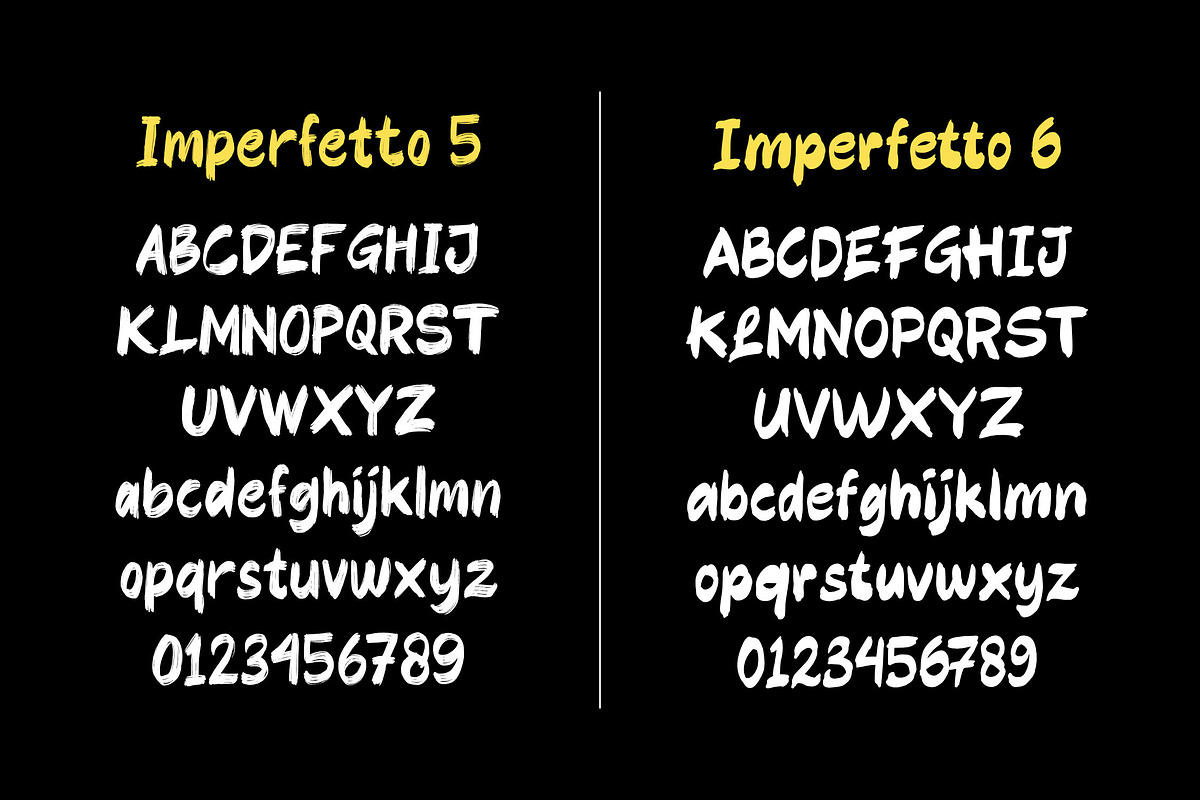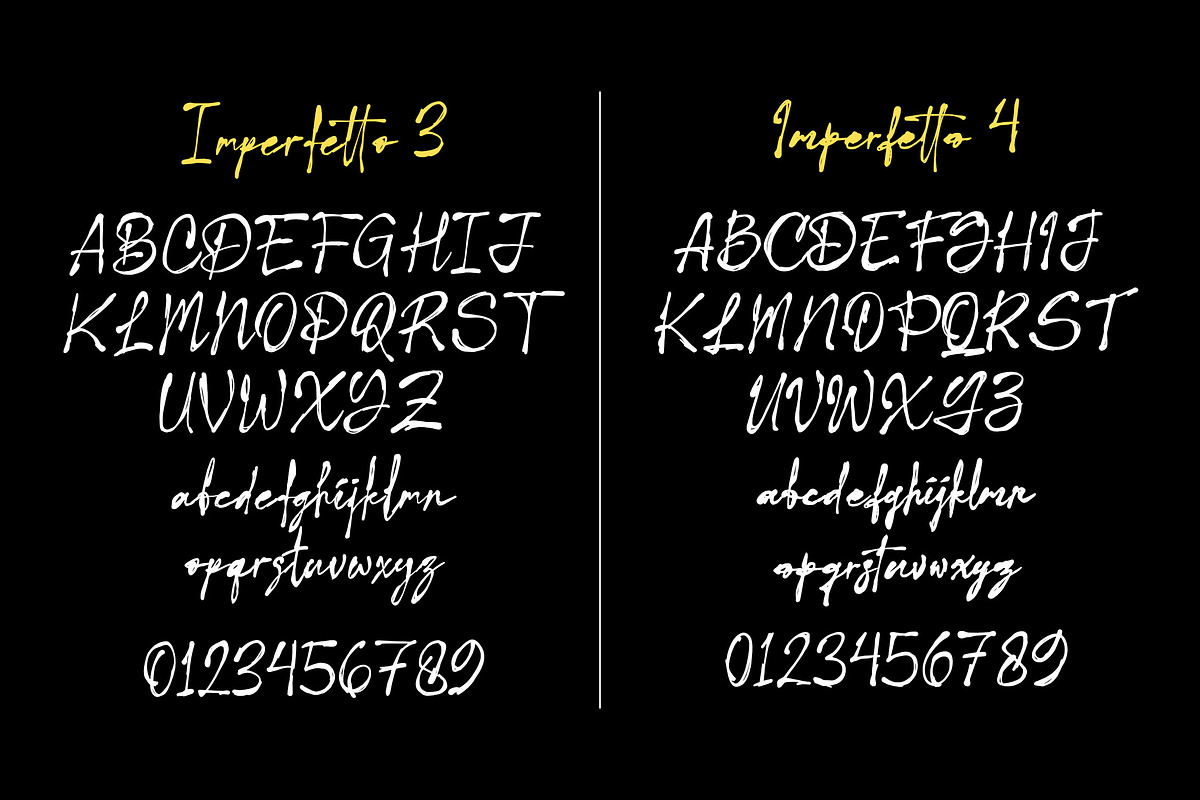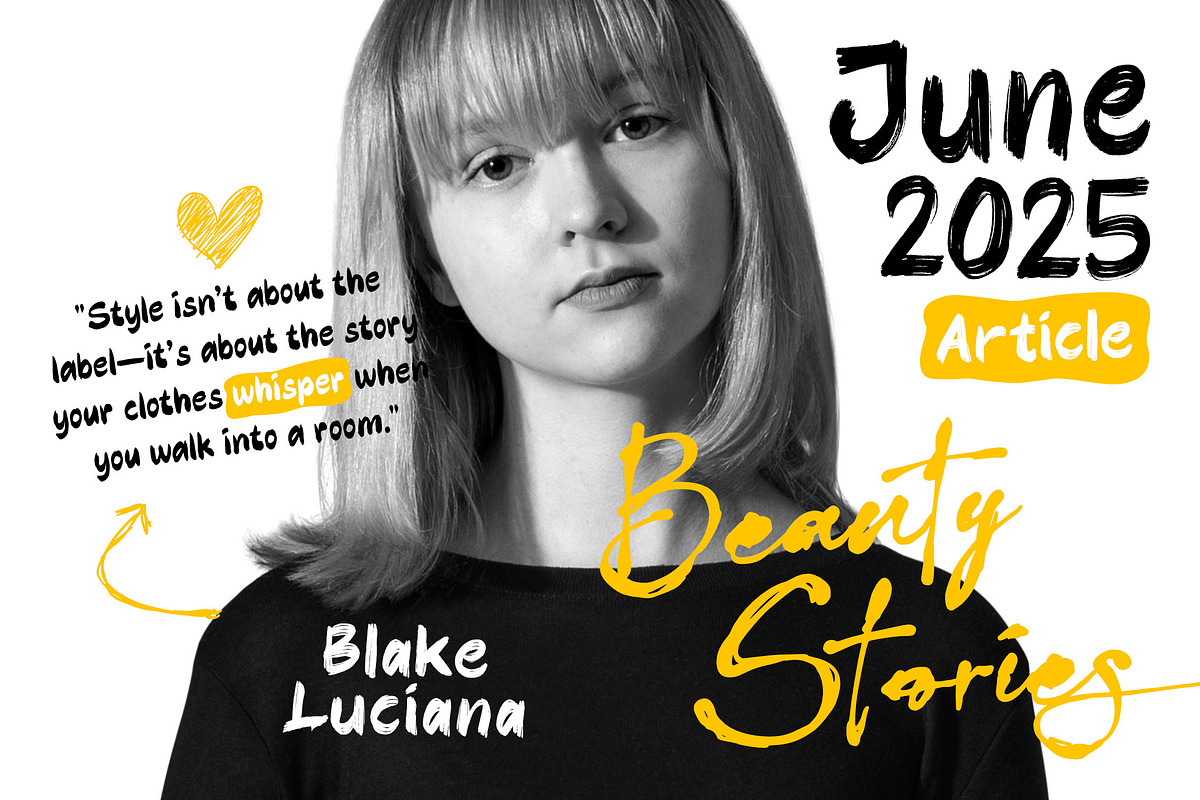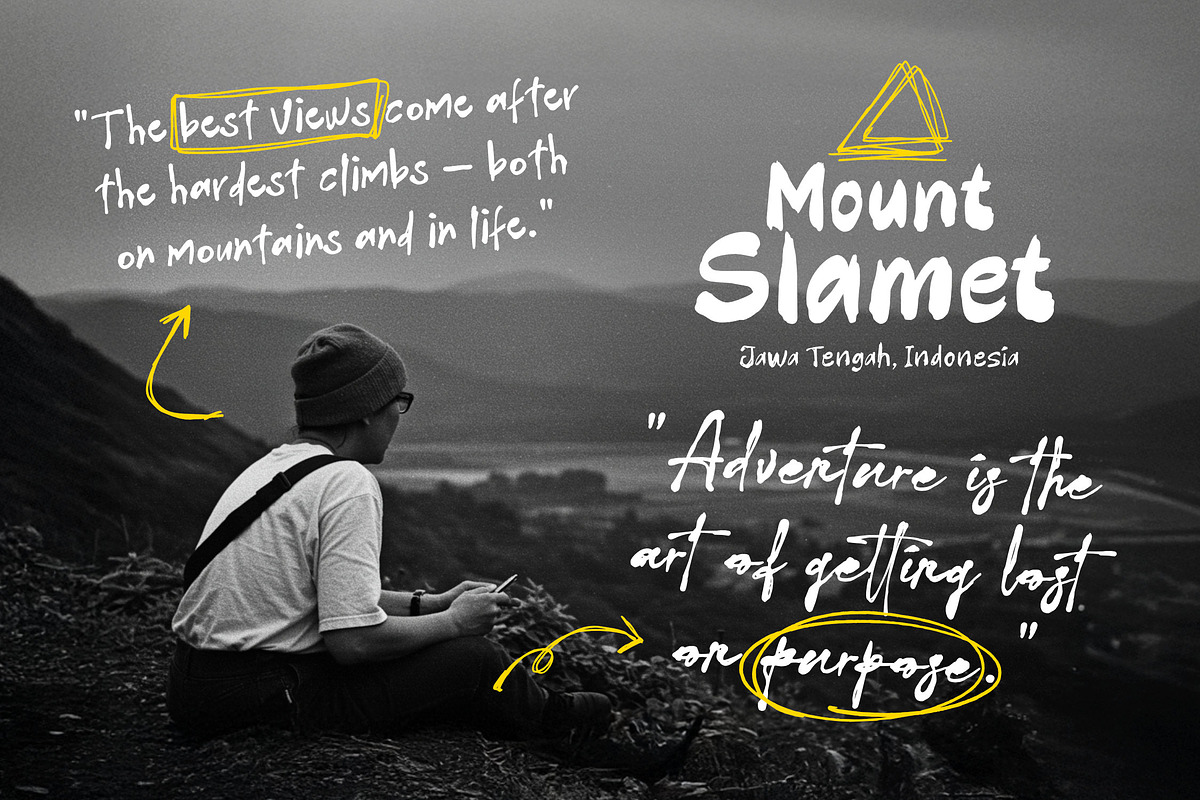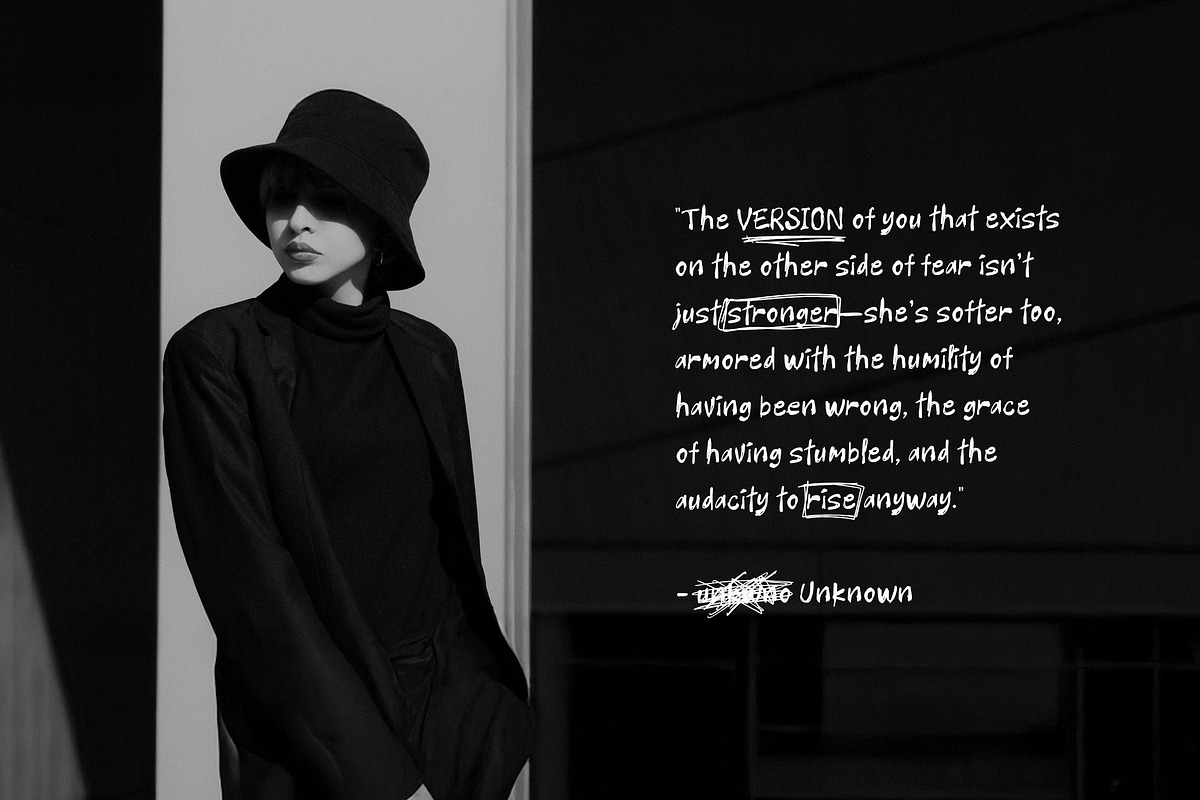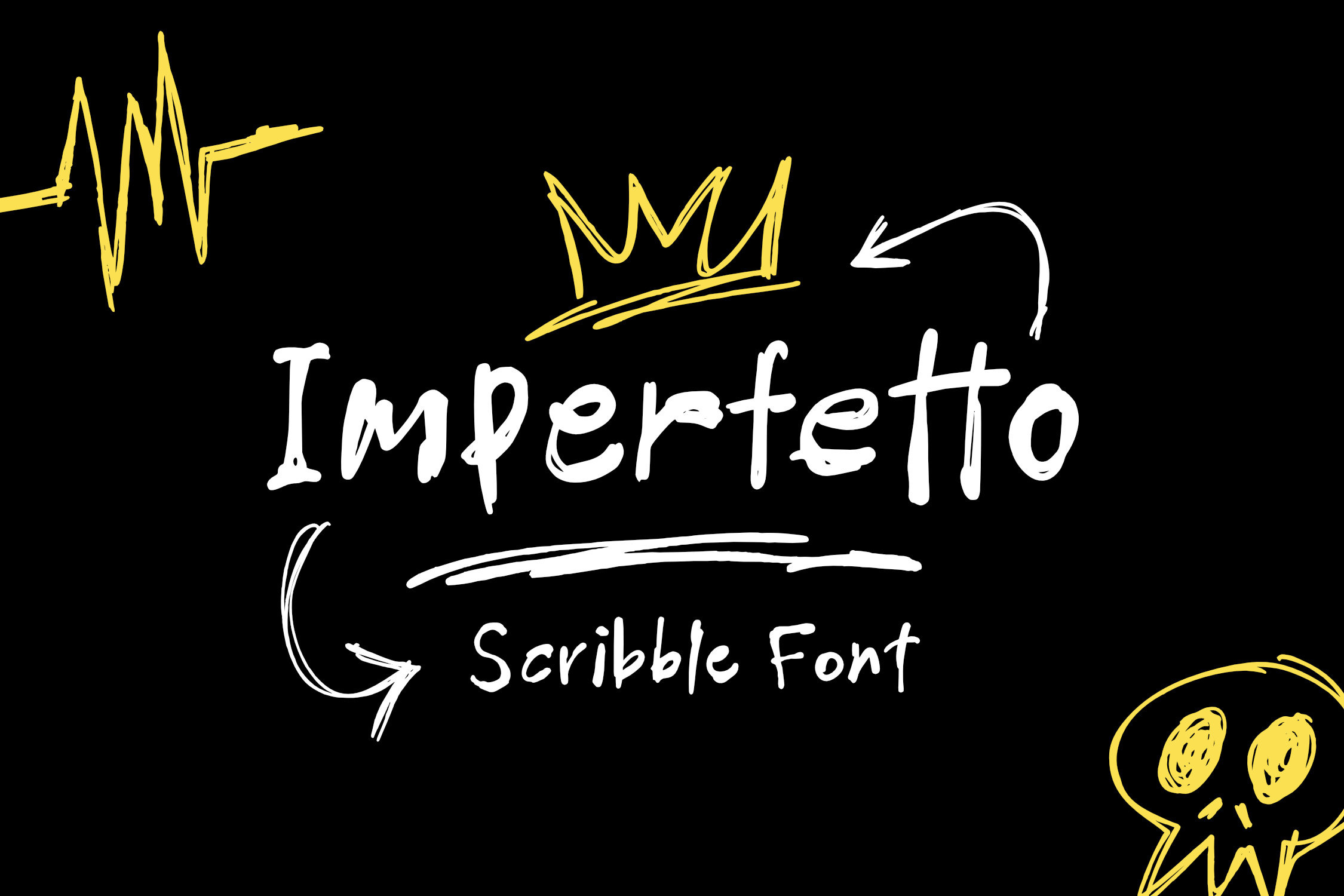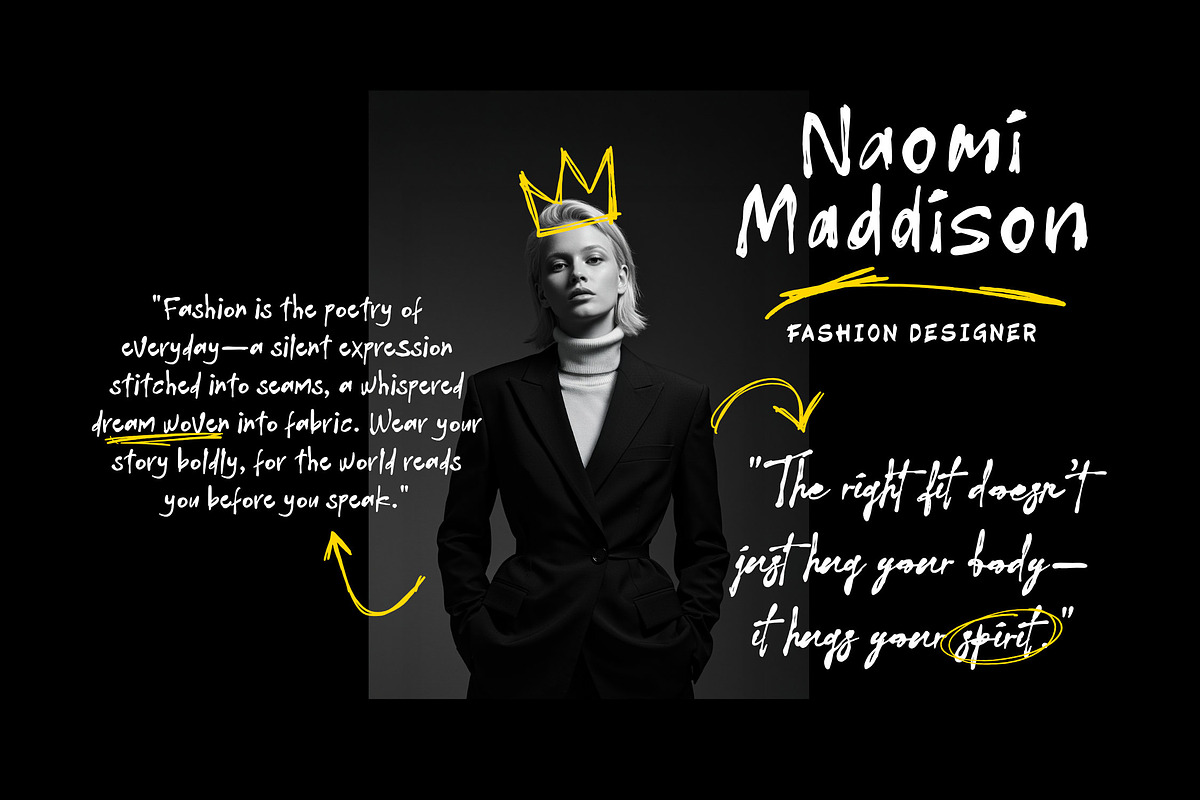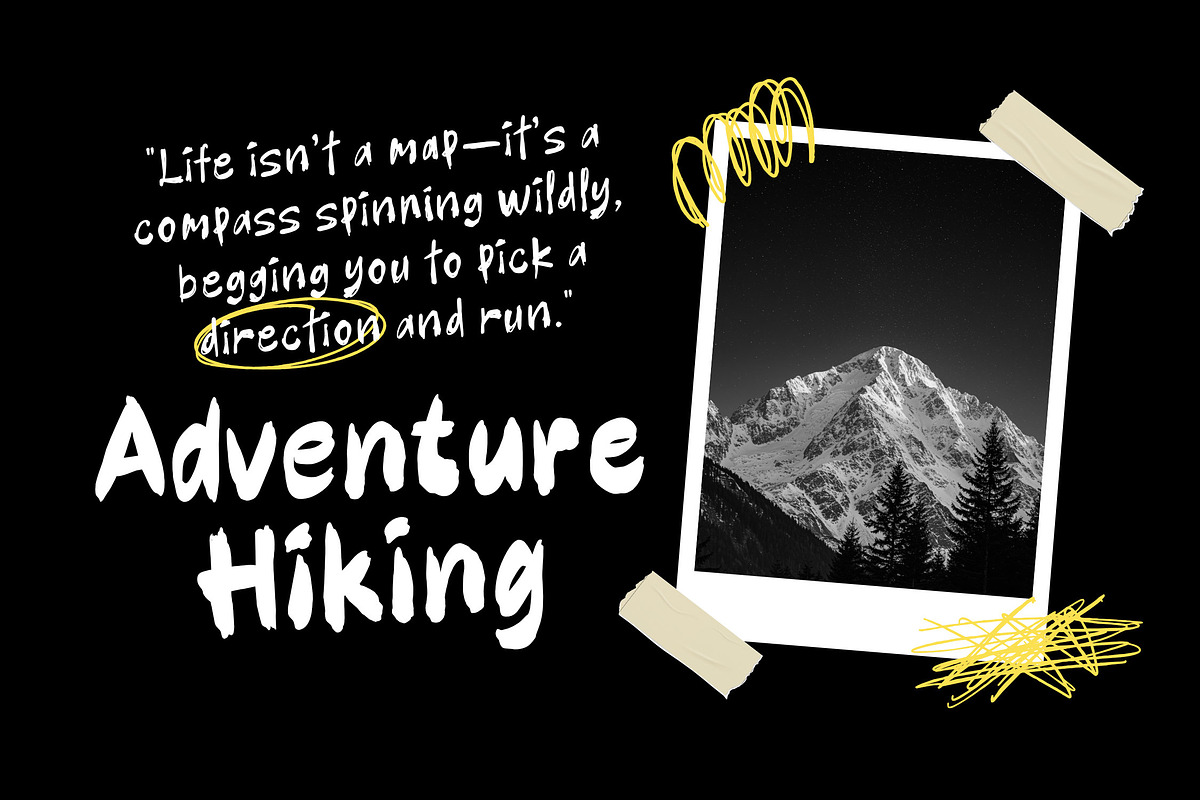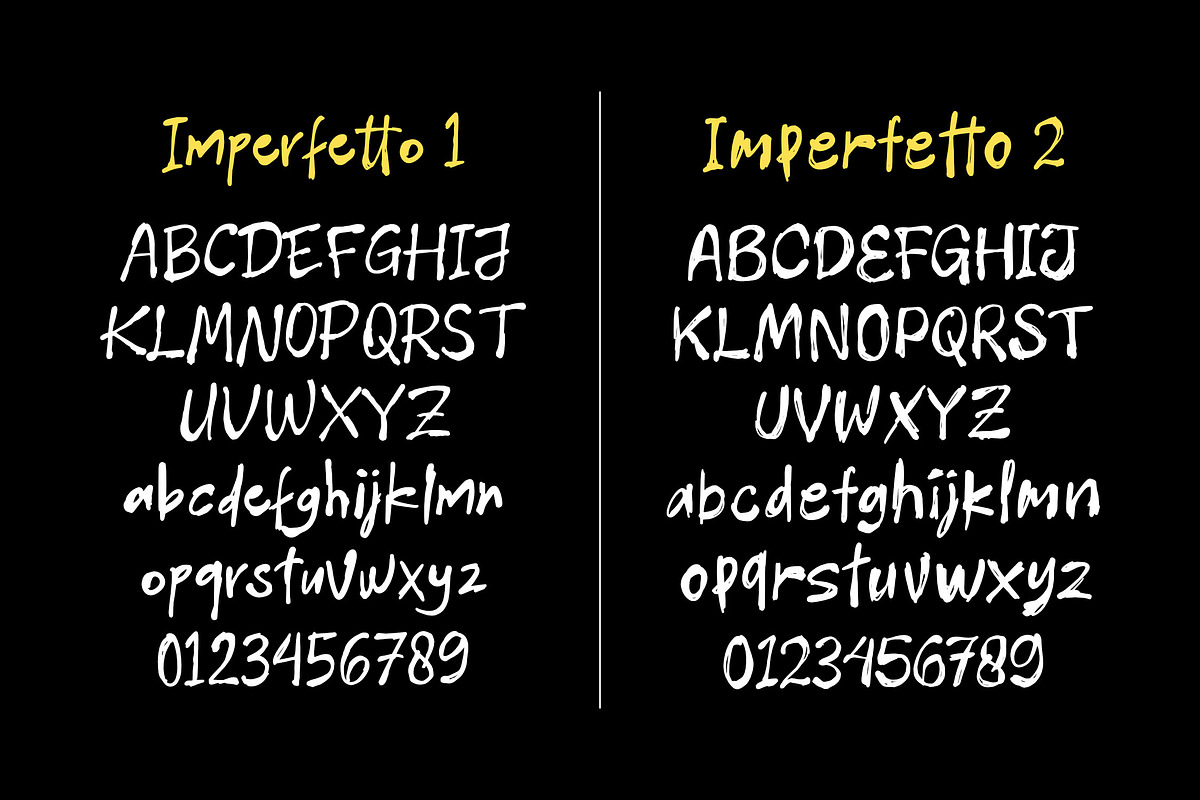
Imperfetto - Scribble Font Family
There’s a wild magic in the first draft—the spark of an idea before the rules kick in. The Imperfetto Font Family bottles that raw, unfiltered creative energy and delivers it straight to your design. This is the typeface for the designer who refuses to be boxed in, for the brand that values authenticity over sterility. The Imperfetto Font Family is ideally suited for disruptive branding, high-impact social media, merchandise, poster design, and any creative project where conveying a spontaneous, unpolished, and intensely human authenticity is the key goal.